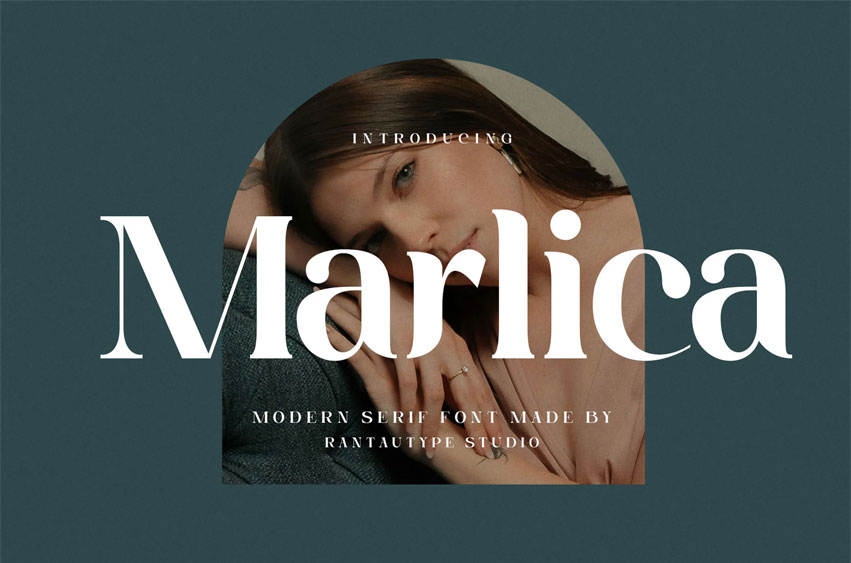
Marlica Font
Marlica Font is modern serif font embrace grace and feminity. Marlica is a perfectly choice for any creative endeavor, creating, modern, lifestyle design such as logotype, title, cover, branding, invitations, wedding designs, display and magazine, social media posts, advertisements, printed quotes, product packaging, corporate brand, product designs, labels, photography, watermarks, special events and any other project with elegant touch.